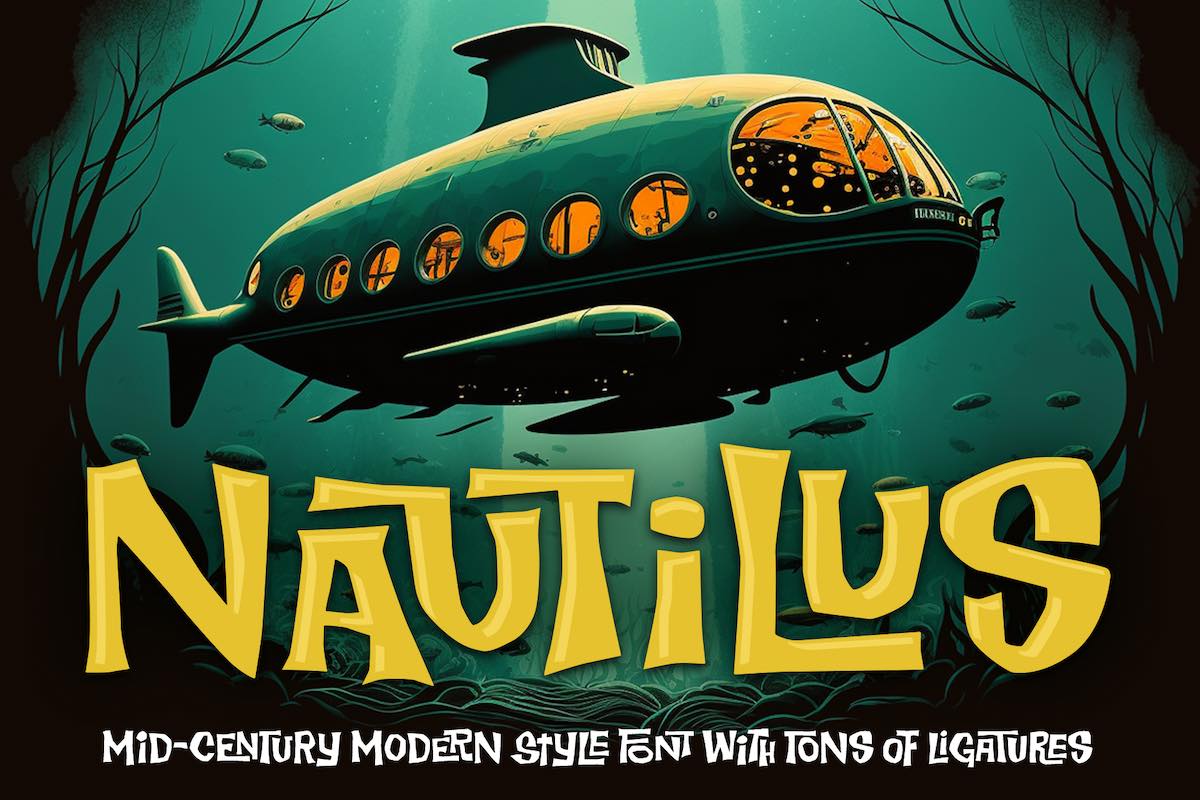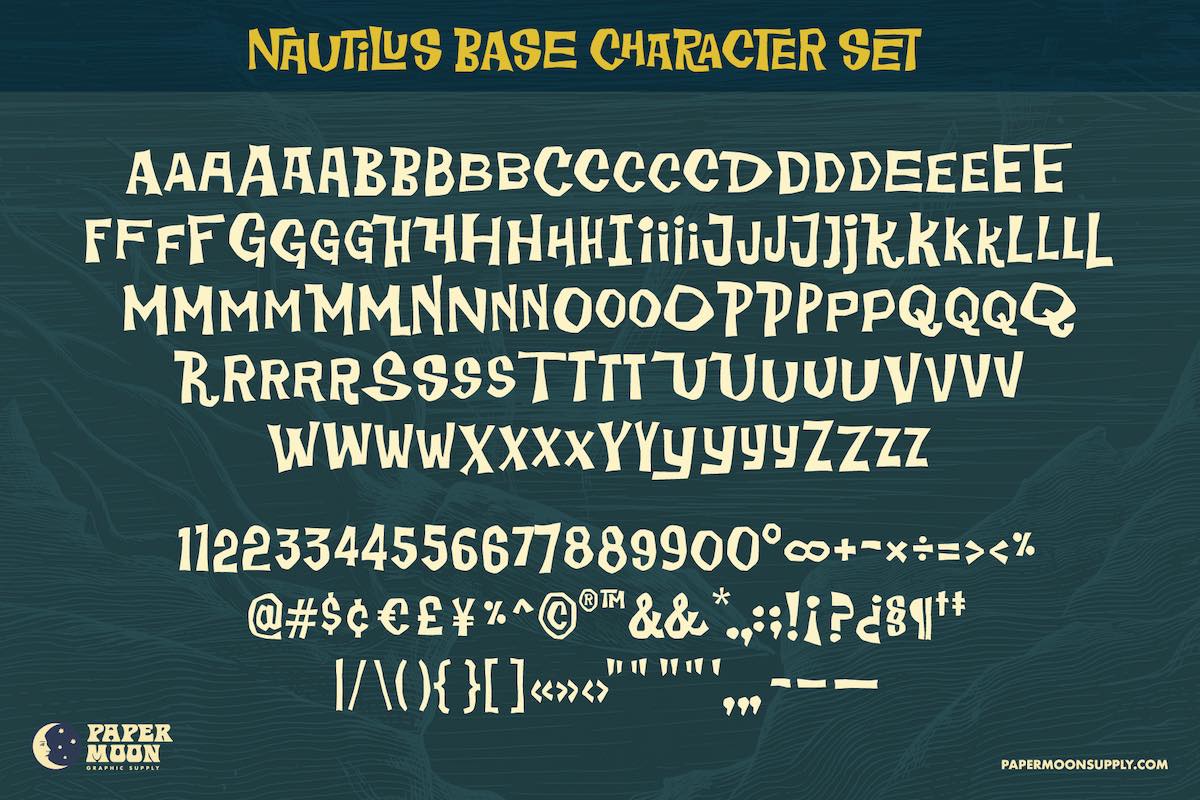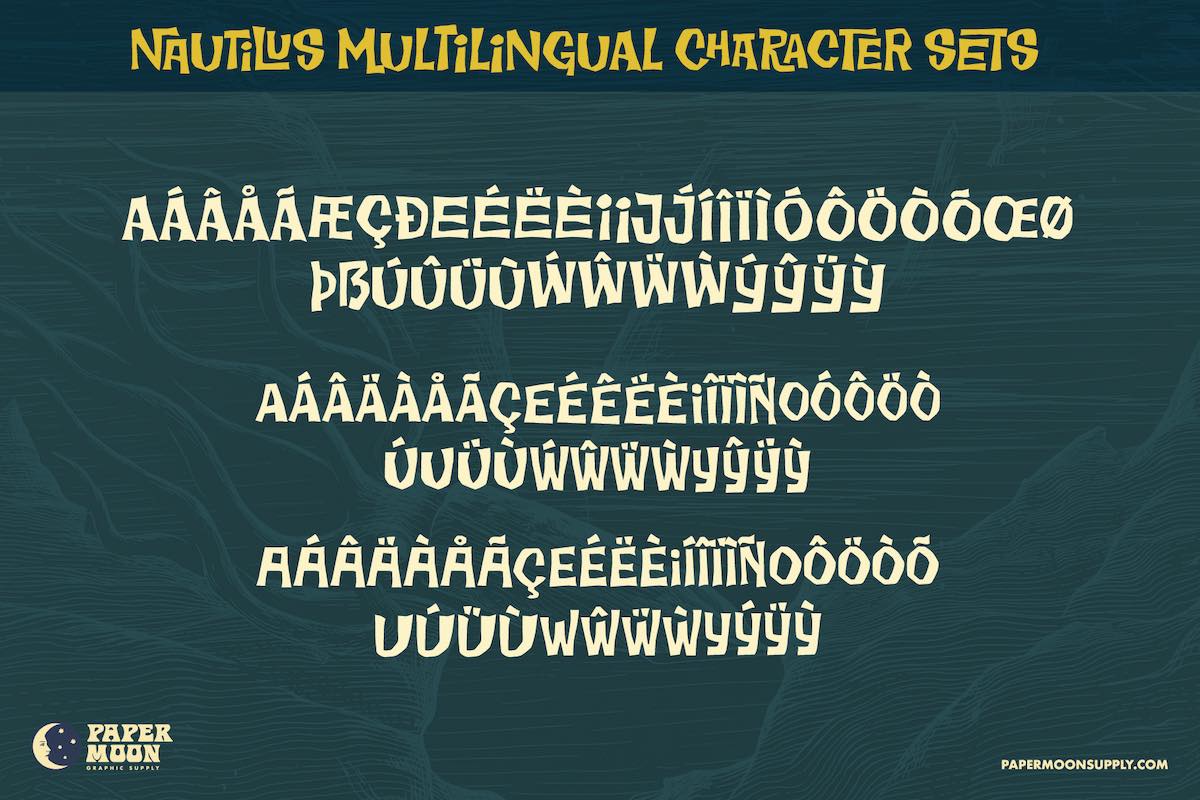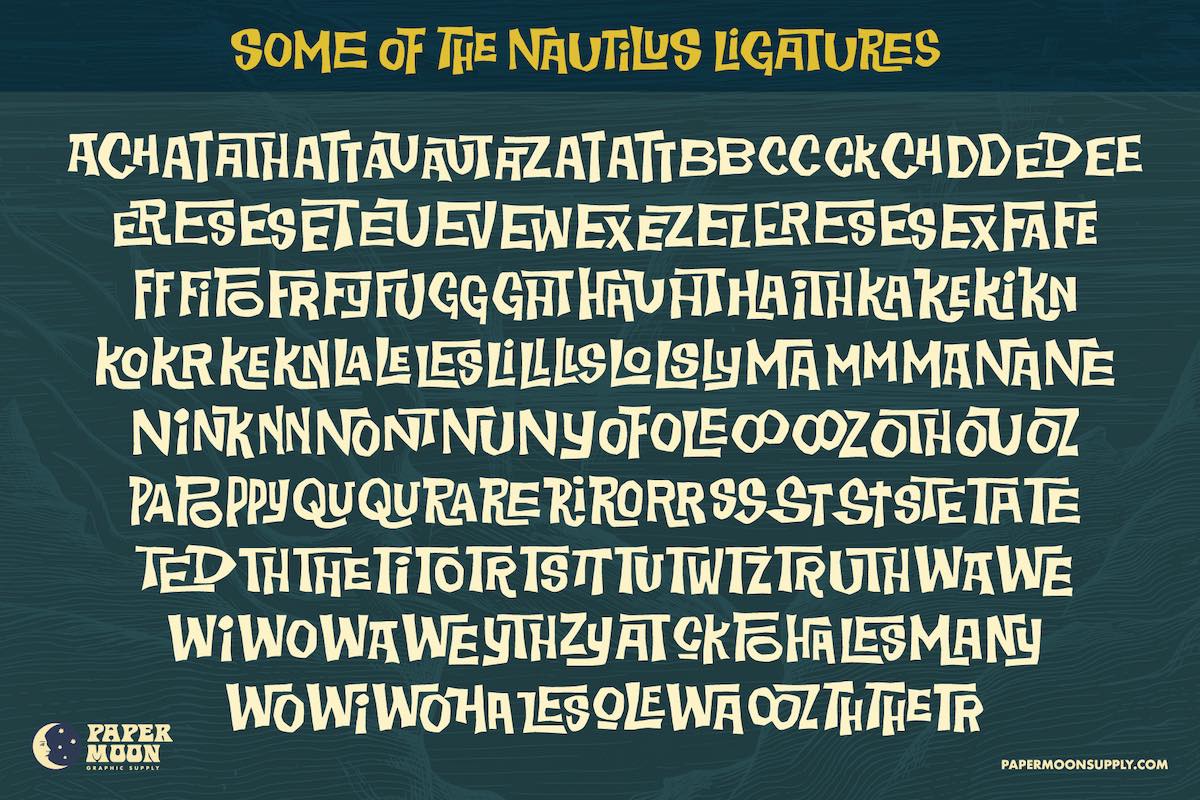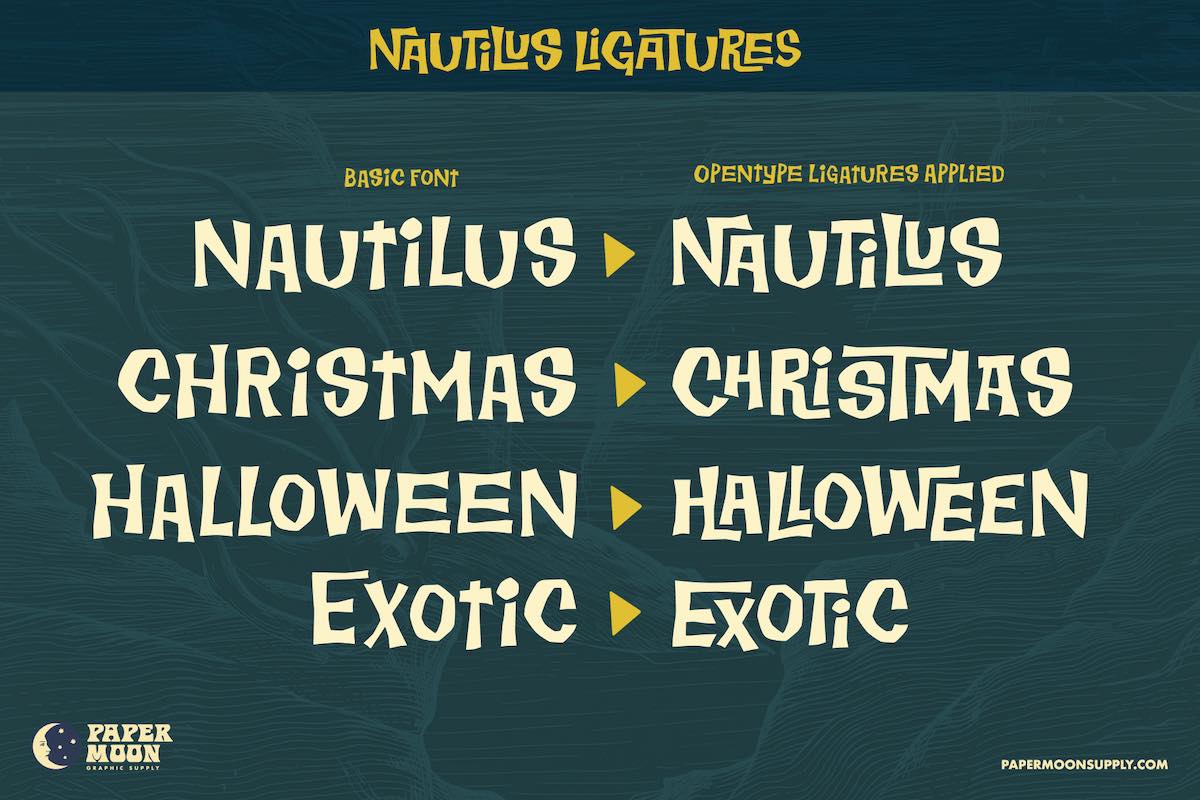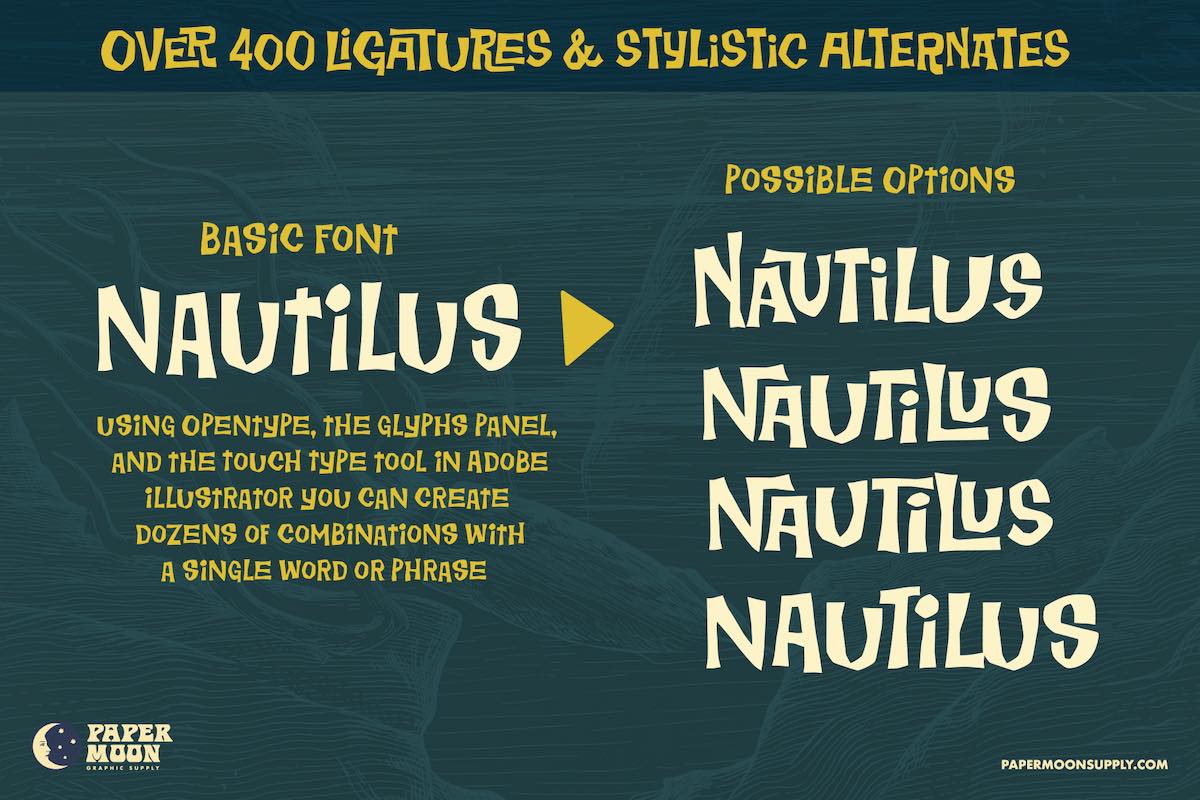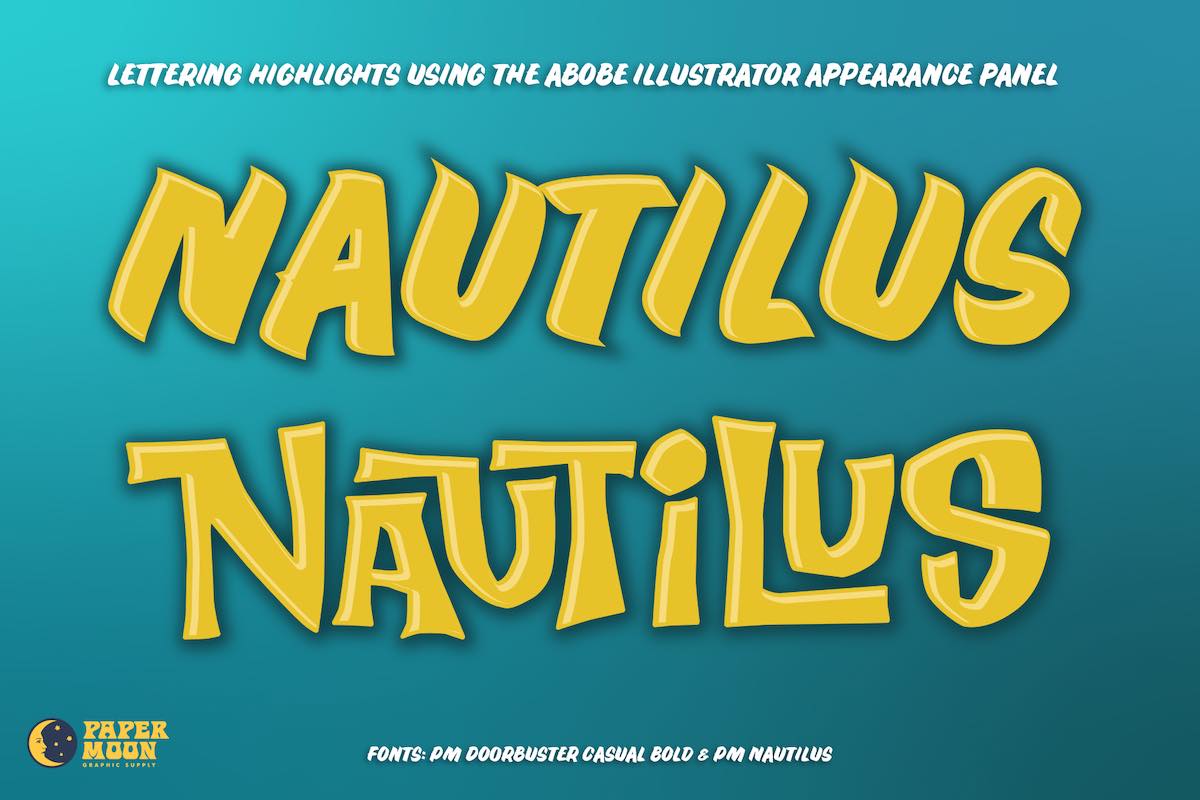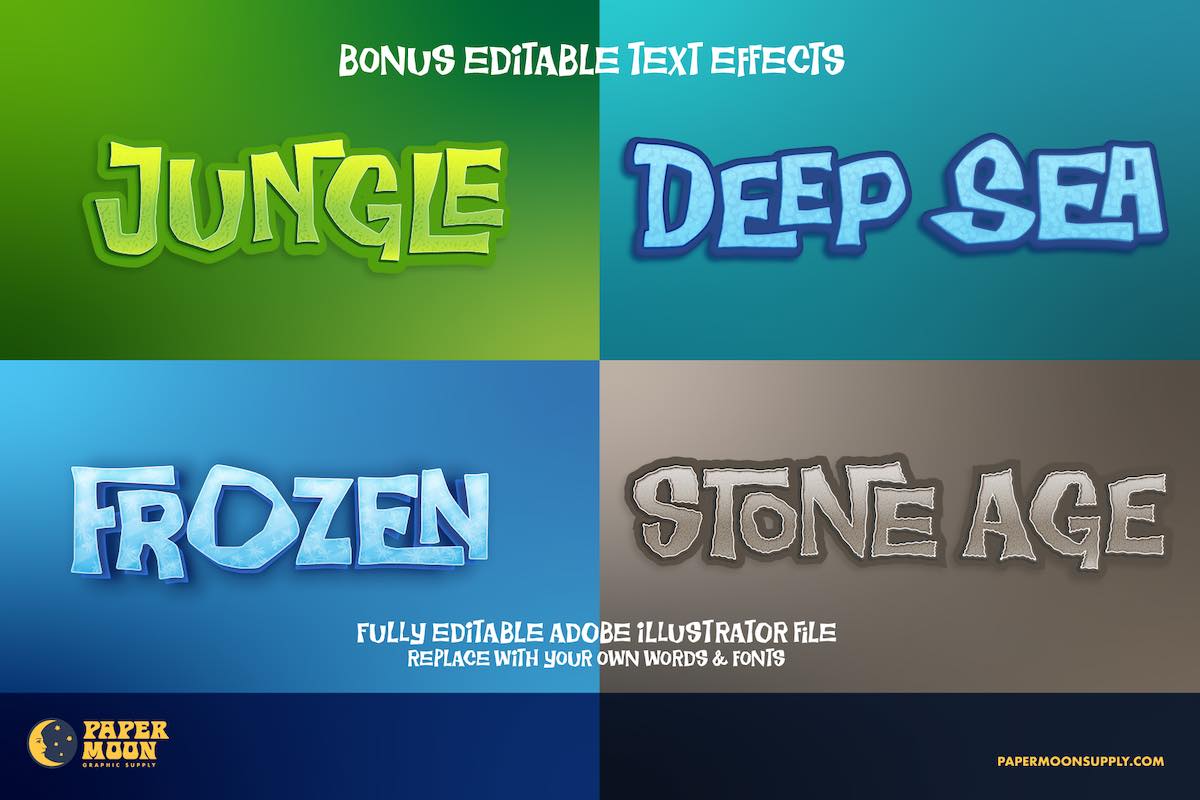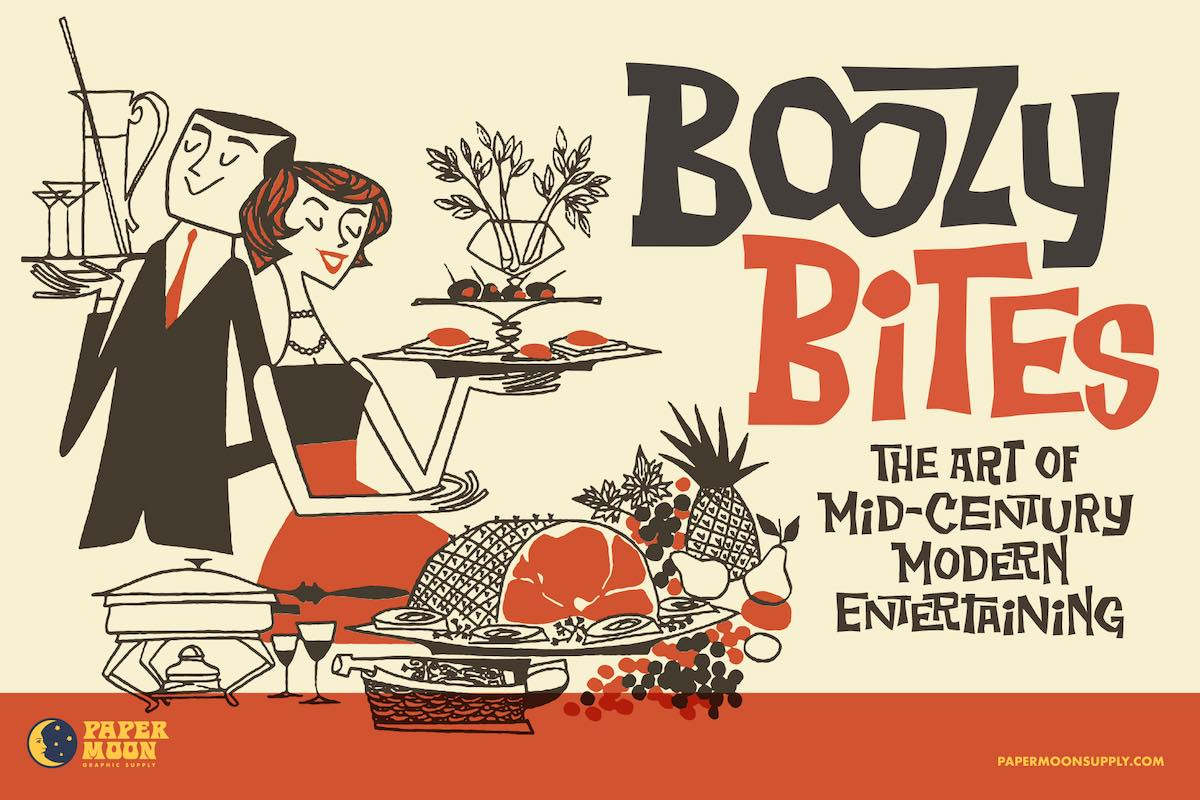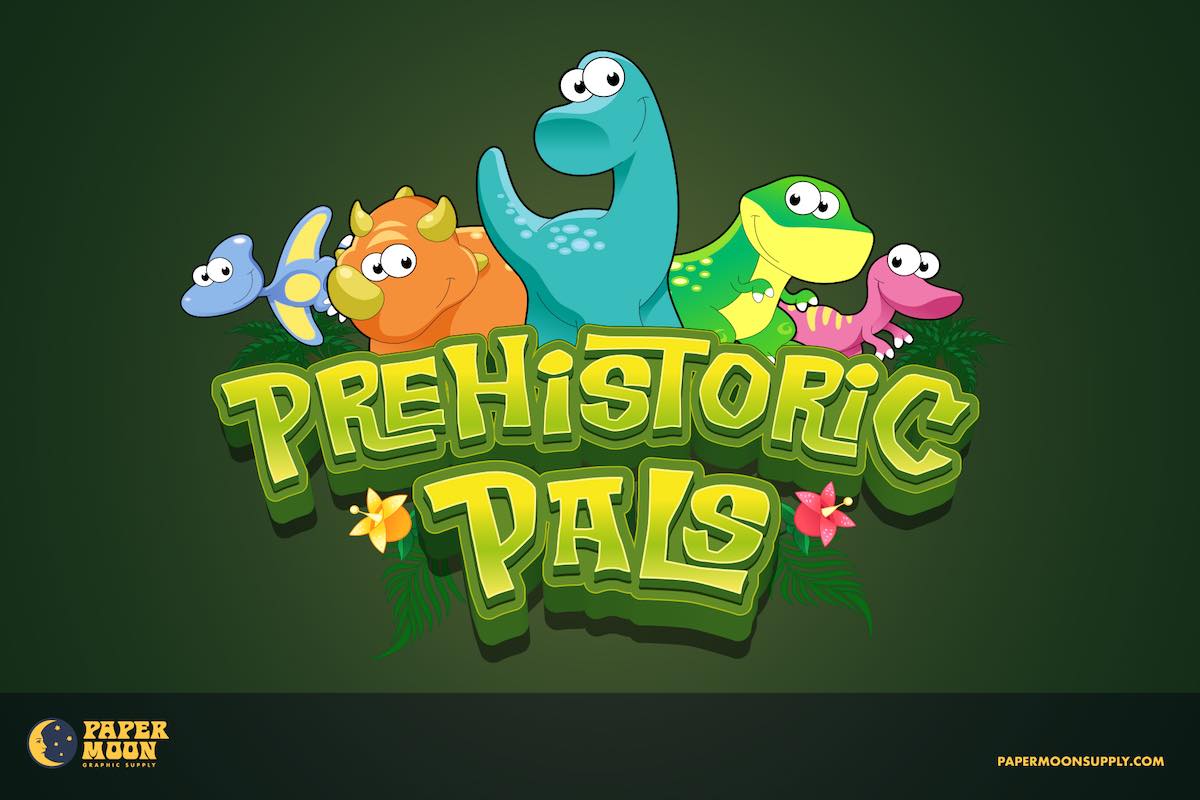
Nautilus
Take your designs under the sea and back in time with Nautilus, a bold and playful font inspired by mid-century modern aesthetics. With its quirky letterforms and over 400 built-in ligatures, Nautilus delivers dynamic text layouts for everything from vintage posters to modern creative projects.
Whether you're designing logos, packaging, or eye-catching headlines, Nautilus brings a distinctive, retro vibe to any project. It's the perfect choice for designers who love nostalgia but want a fresh twist on vintage typography.
• Mid-Century Inspired Design: Perfectly captures the essence of retro typography with modern usability.
• 400+ Ligatures and Alternates: Achieve unique text combinations effortlessly for one-of-a-kind designs.
• Multilingual Character Support: Includes an expansive set of characters for international creativity.
• Bonus Editable Text Effects: Includes "Jungle," "Deep Sea," "Frozen," and "Stone Age" text effects to elevate your work.
• Versatile Use Cases: Ideal for posters, branding, social media graphics, invitations, and more.
Nautilus isn't just another font – it's a toolbox for creativity. Its OpenType features allow you to experiment with ligatures and stylistic alternates to make every word look handcrafted. With bonus Illustrator text effects, you’ll have everything you need to create standout visuals right out of the box.